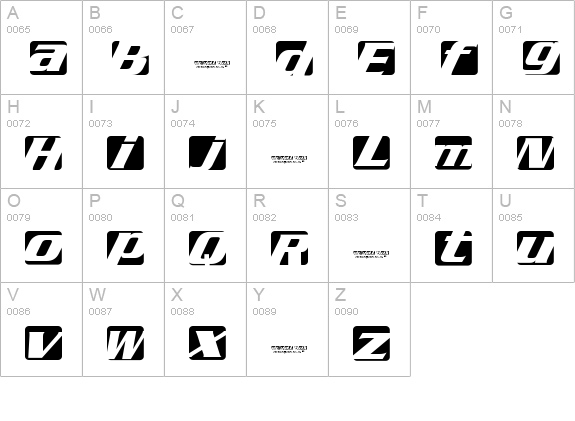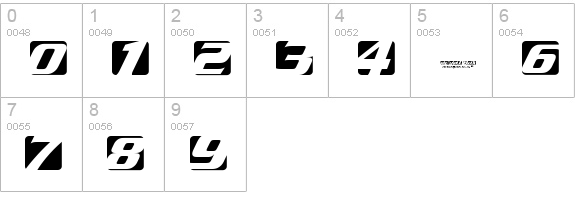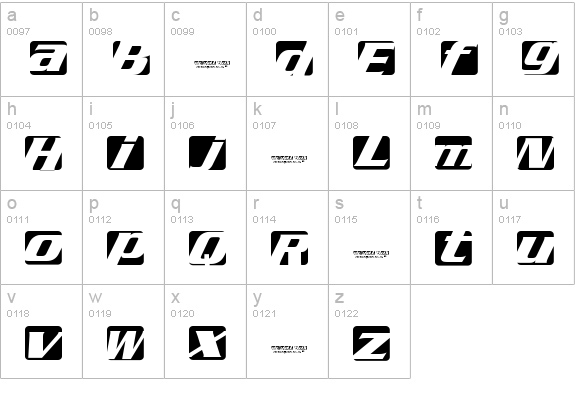
Introducing the exquisite and elegant Regal box font - a true masterpiece of typographic design that will captivate your audience with its timeless charm. This font's refined and sophisticated lines bring a touch of class to any project, making it the perfect choice for luxurious branding, high-end packaging, and exquisite invitations. Regal box font boasts a unique blend of classic and contemporary elements, resulting in a truly versatile typeface that effortlessly blends tradition with modernity. Its perfectly balanced proportions and graceful curves create a harmonious visual experience that is sure to leave a lasting impression. But what sets Regal box font apart from the rest is that it is not only a stunning font, but it is also free! Yes, you read that right - this remarkable typeface is freely available to download at FontsMarket.com. Now, you can elevate your design projects without breaking the bank. Embrace the regal elegance of Regal box font and let your creativity soar. Whether you're designing a prestigious logo, crafting an exquisite wedding invitation, or creating a sophisticated branding package, this font will effortlessly elevate your work to new heights. Its versatility and timeless appeal make it a must-have addition to any designer's toolkit. So why wait? Head over to FontsMarket.com and download Regal box font today. Let this free gem adorn your creations and make a bold statement that resonates with elegance and sophistication. Unleash your creativity and watch as Regal box font transforms your designs into true works of art.